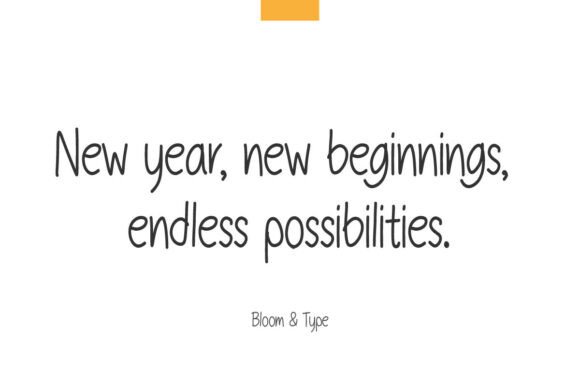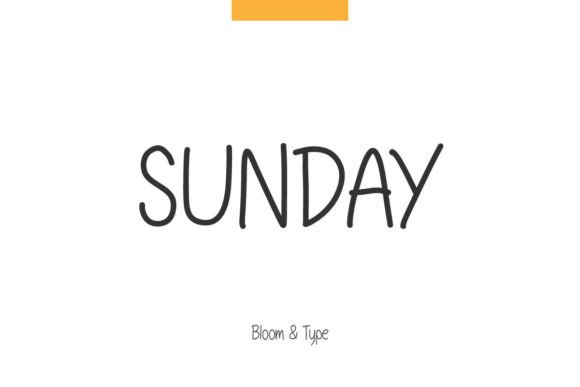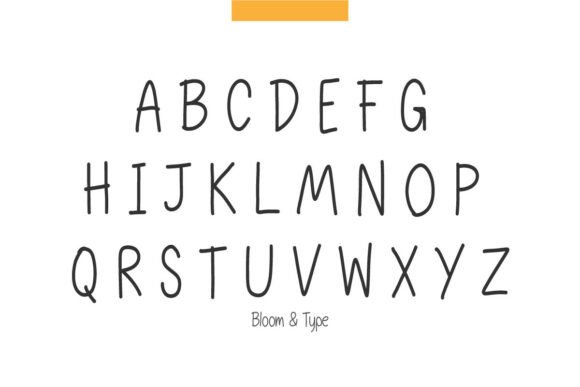
Introduction to Bhalika Font
Bhalika is a charming and minimalist handwritten font designed to bring warmth and simplicity to your creative projects.
With its gentle curves, smooth strokes, and natural flow, Bhalika captures the essence of modern casual handwriting — friendly, legible, and full of character This font blends a sense of calmness and personality, making it perfect for any design that aims to feel personal yet polished.